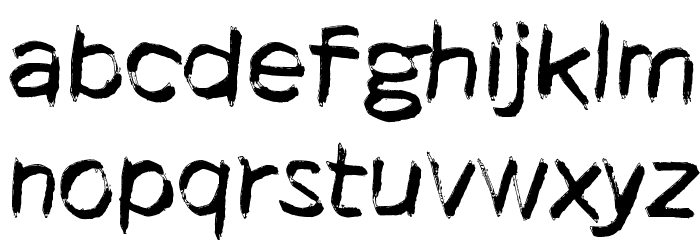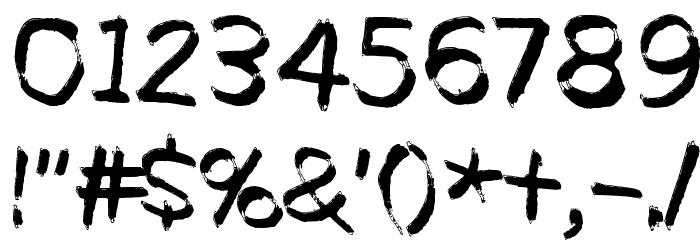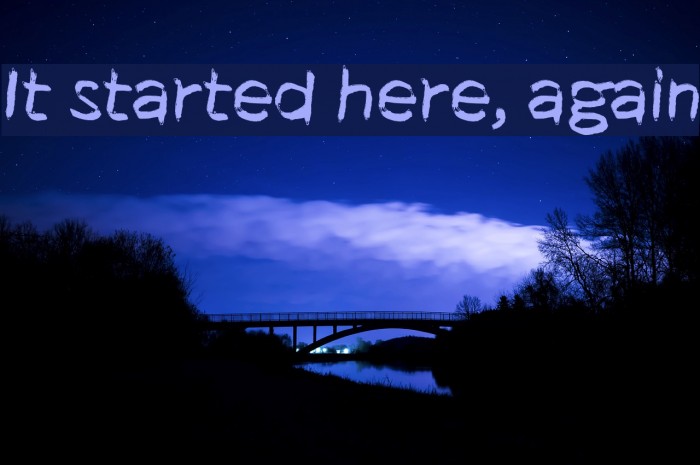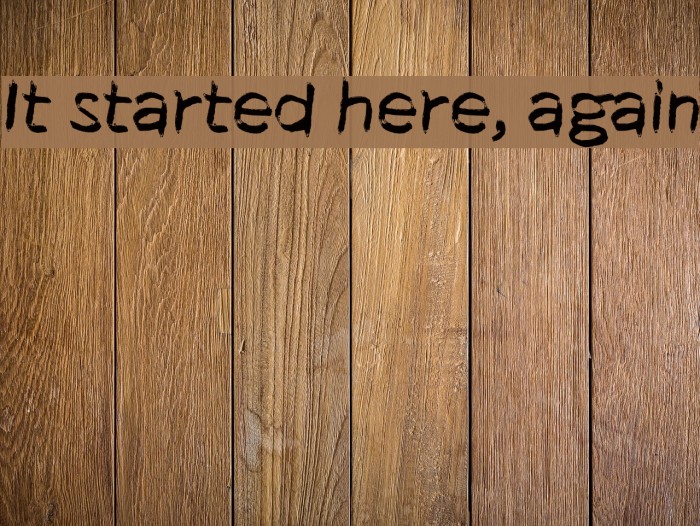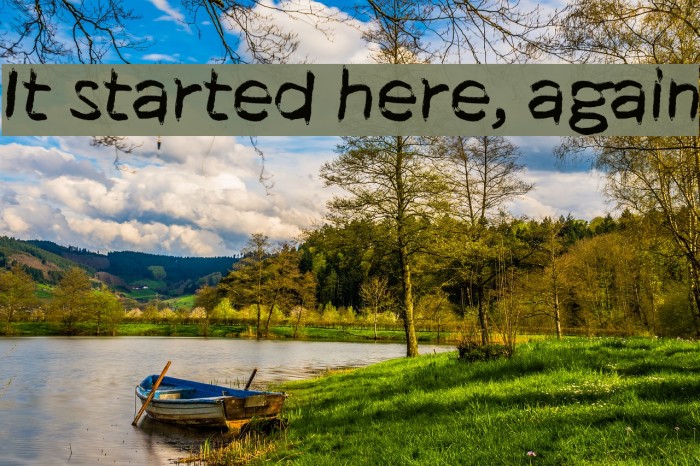
It started here, again Font
This font exudes a bold and expressive style with its brush-like strokes, giving it a hand-painted appearance. The letters are slightly irregular, adding a dynamic and artistic flair. The uppercase and lowercase characters maintain a consistent style, with rounded edges and varying thickness that suggest a sense of movement. The numbers and special characters follow the same aesthetic, ensuring a cohesive look throughout. This font is ideal for projects that require a personal touch or an artistic vibe, such as posters, invitations, or branding materials.
A bold, brush-style font with an artistic and dynamic flair.
- Proposed Projects: Posters, invitations, branding materials, artistic projects.
- Overall Style: Artistic, Expressive